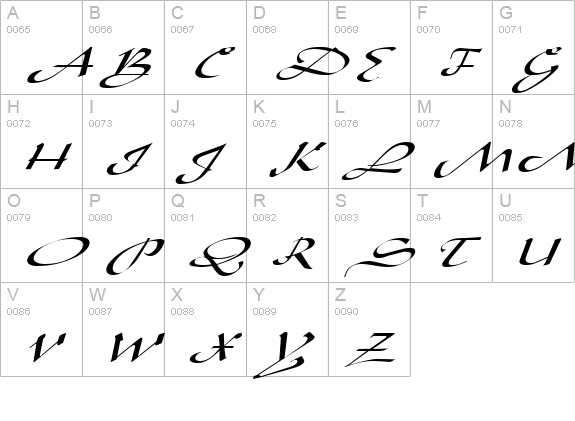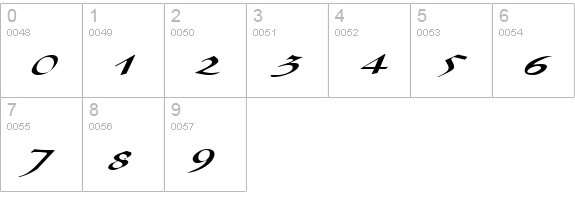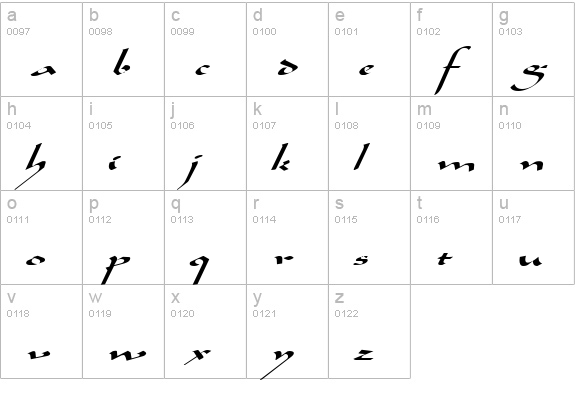
AladdinExpanded Italic Font Details
AladdinExpanded Italic is a distinctive, italic variant in the AladdinExpanded typeface family \xE2\x80\x94 well suited to design and typography projects.
AladdinExpanded Italic font is a dynamic and enchanting typeface that adds a touch of magic to any design project. With its whimsical curves and elegant strokes, this font captures the essence of adventure and fantasy. Perfect for fairy tale-themed designs, children's books, or any project that needs a playful and imaginative touch. Best of all, AladdinExpanded Italic font is completely free to download at FontsMarket.com. So, whether you're a designer looking to add some charm to your creations or simply a fan of beautiful typography, this font is sure to delight and inspire. Let your creativity soar with AladdinExpanded Italic font today!